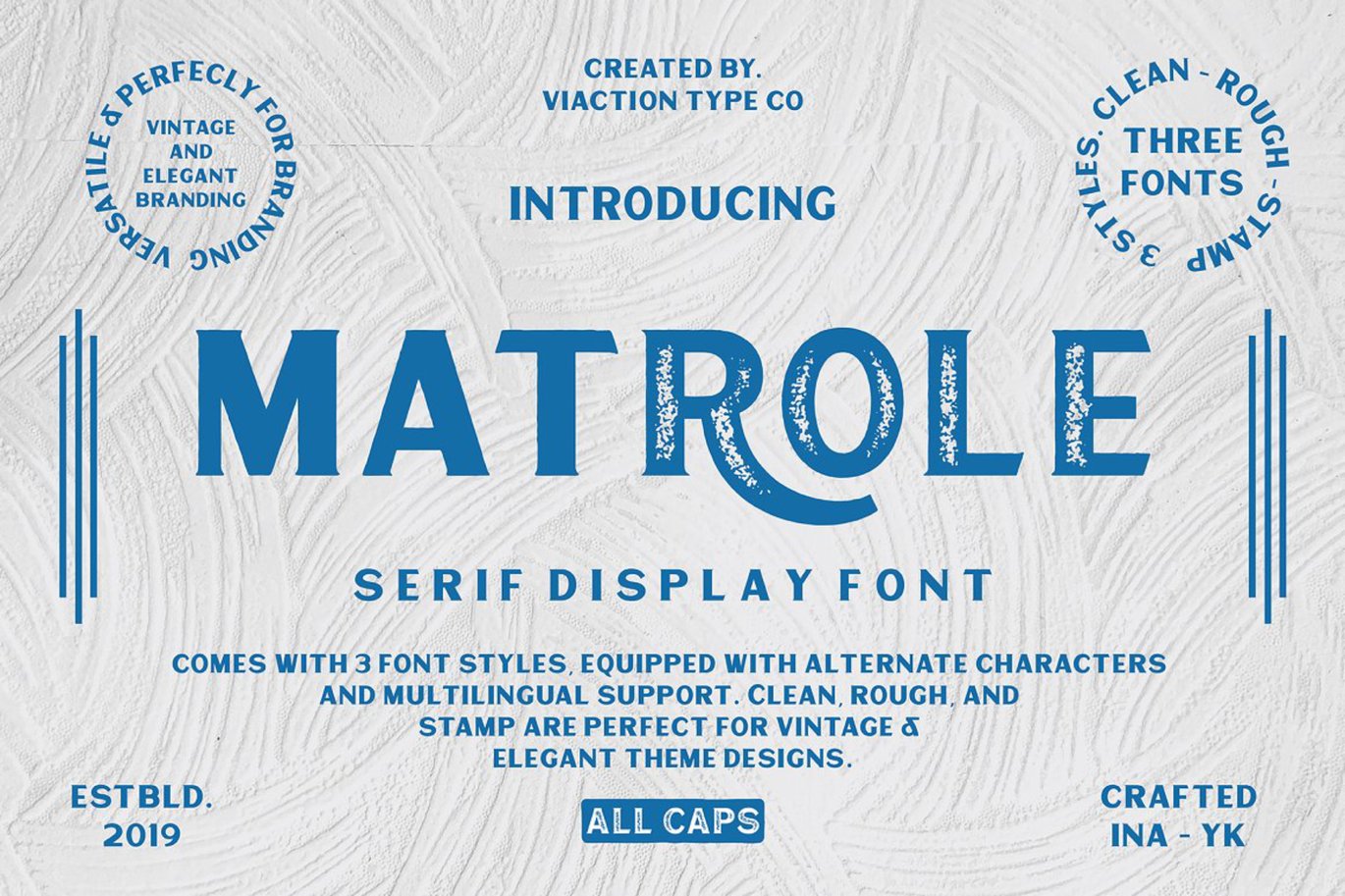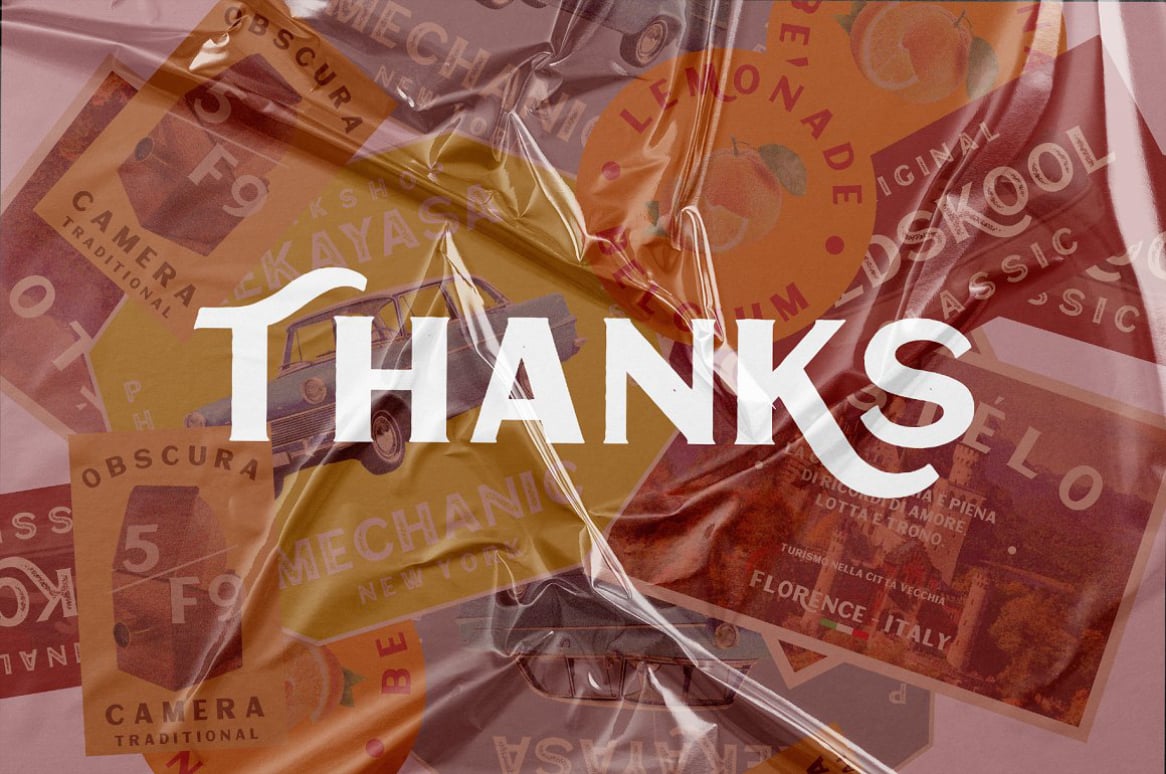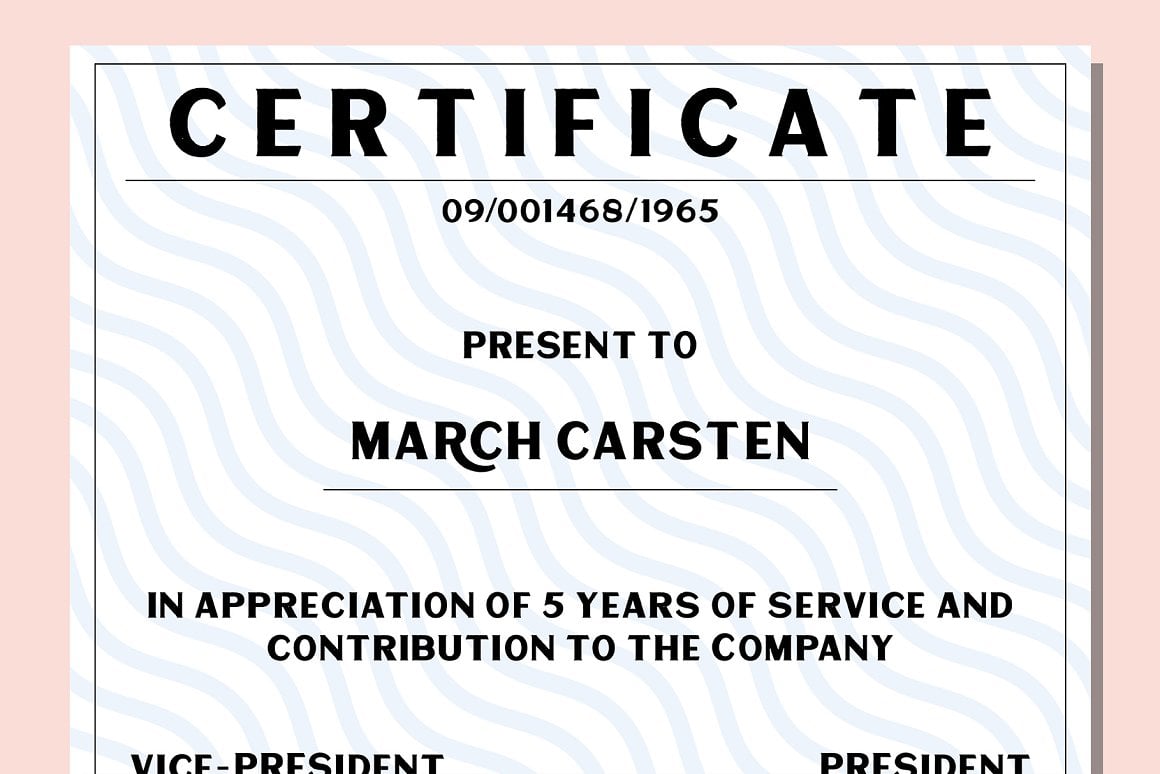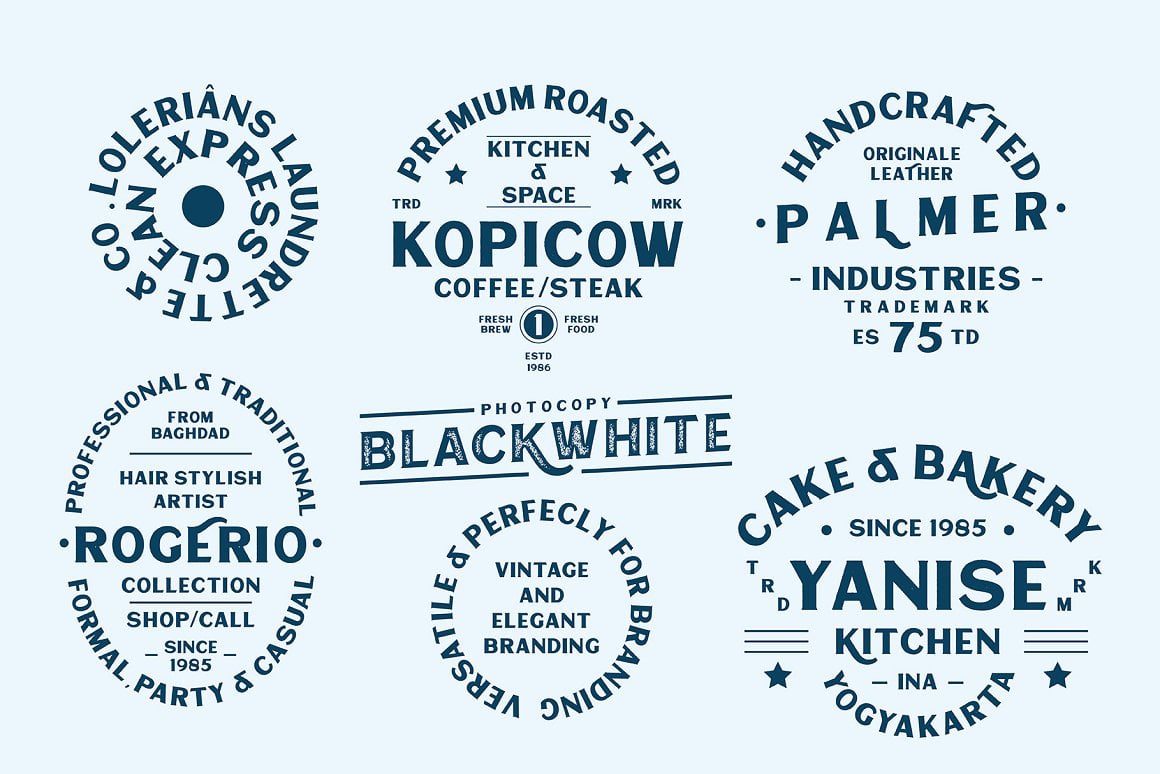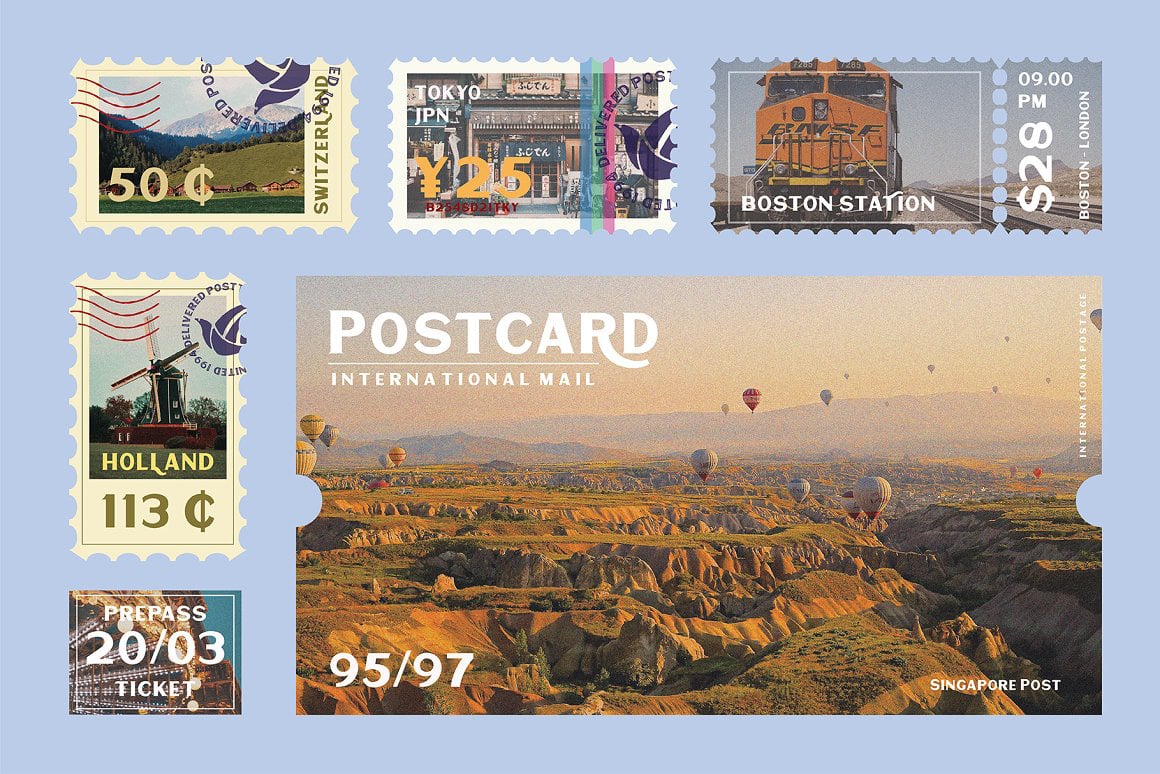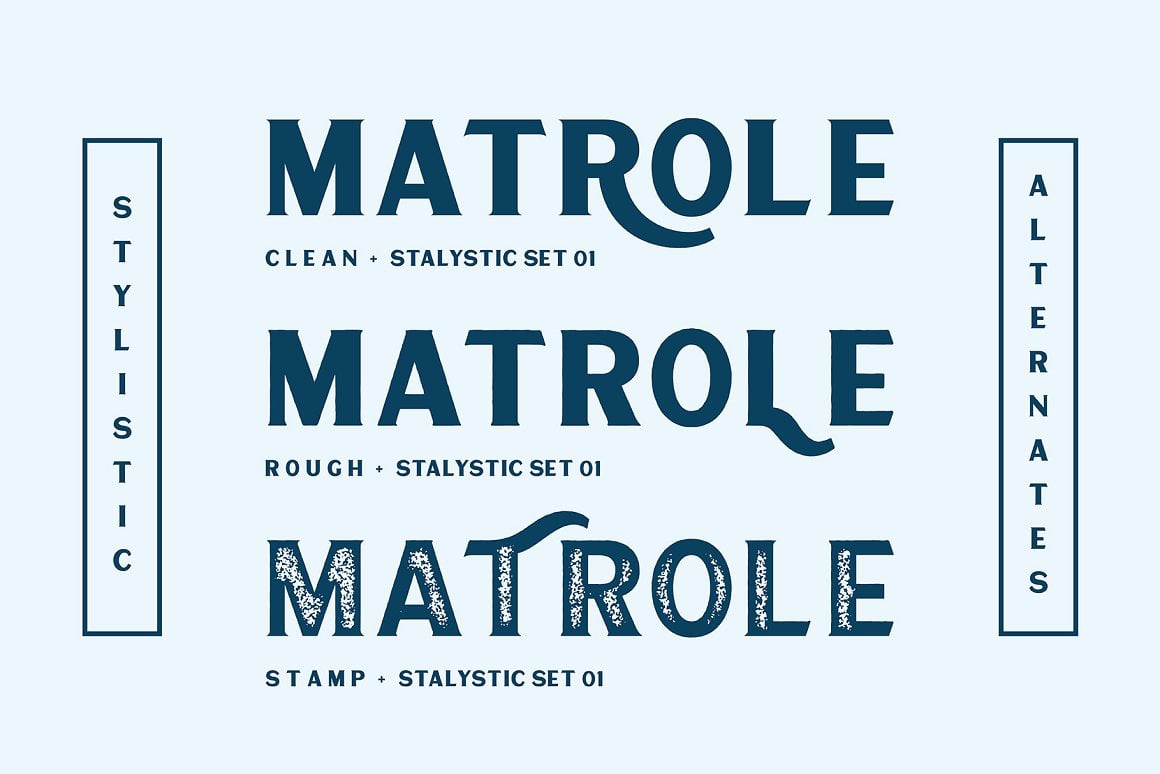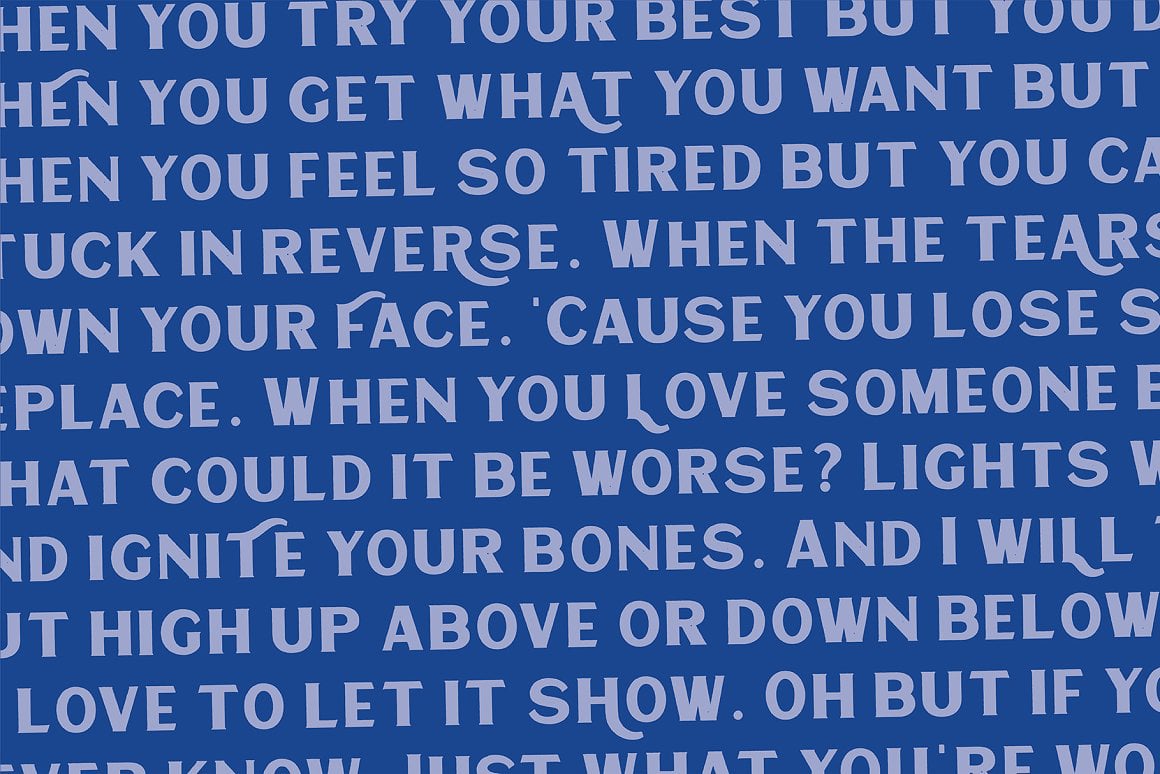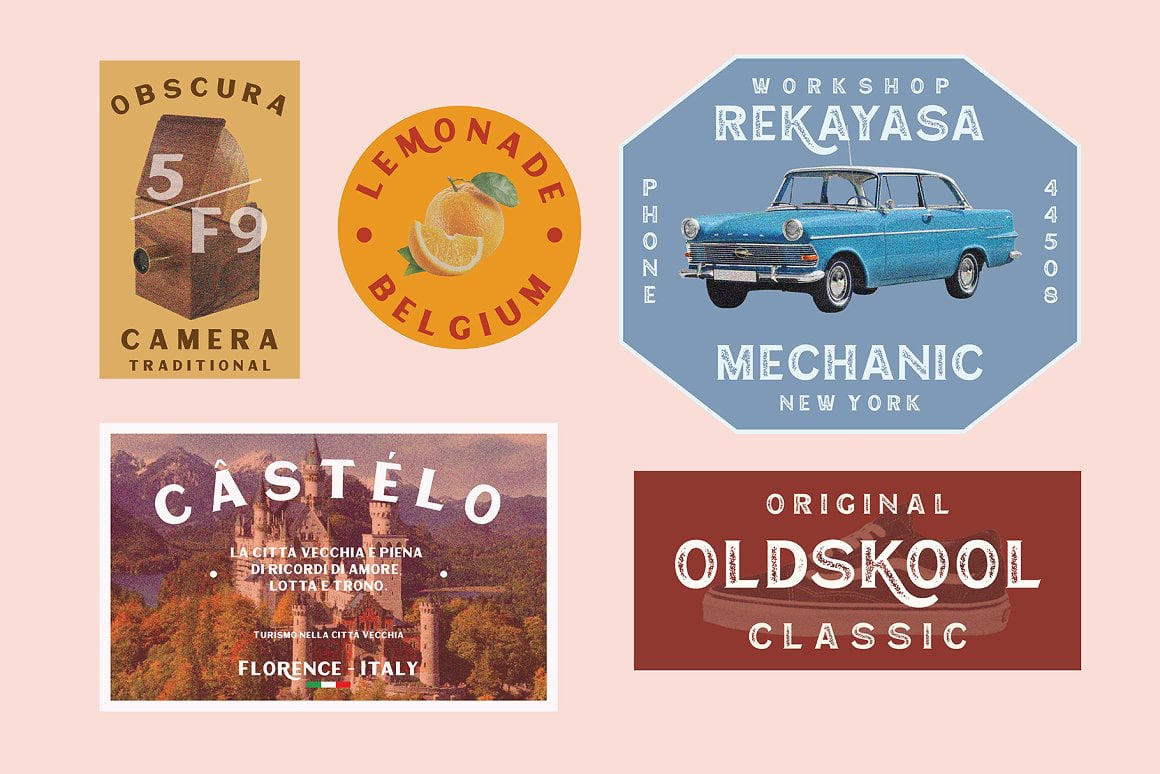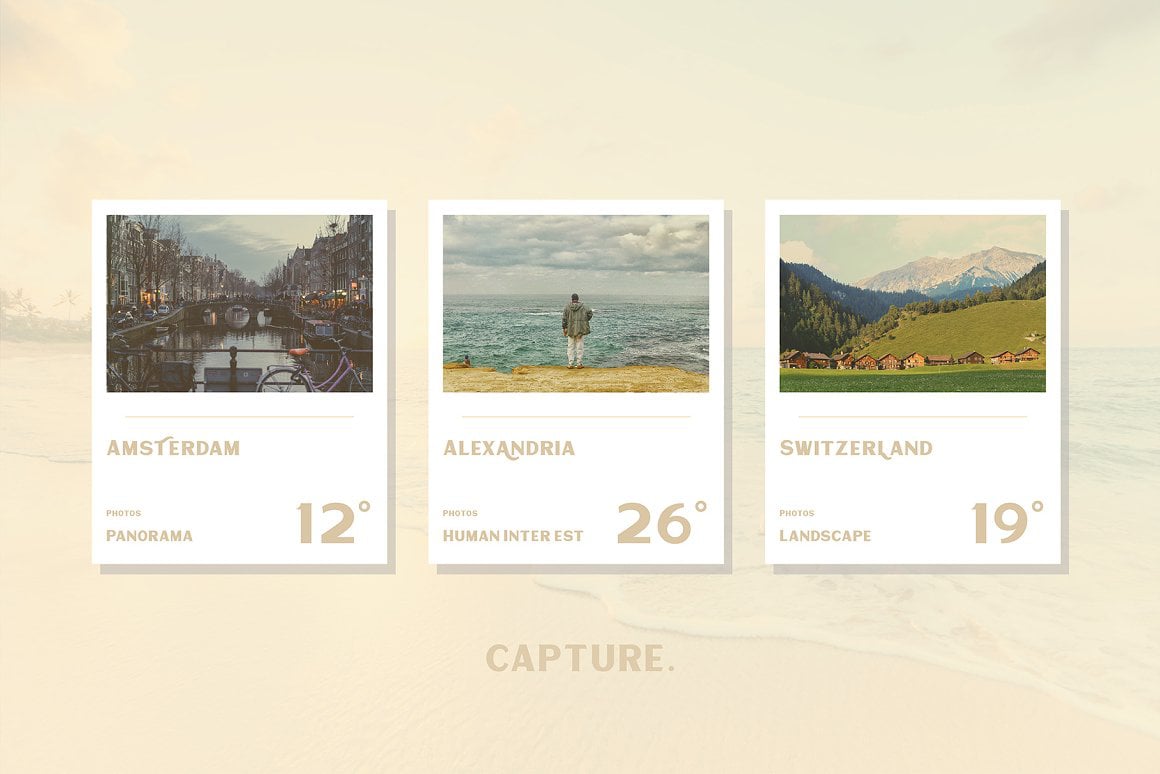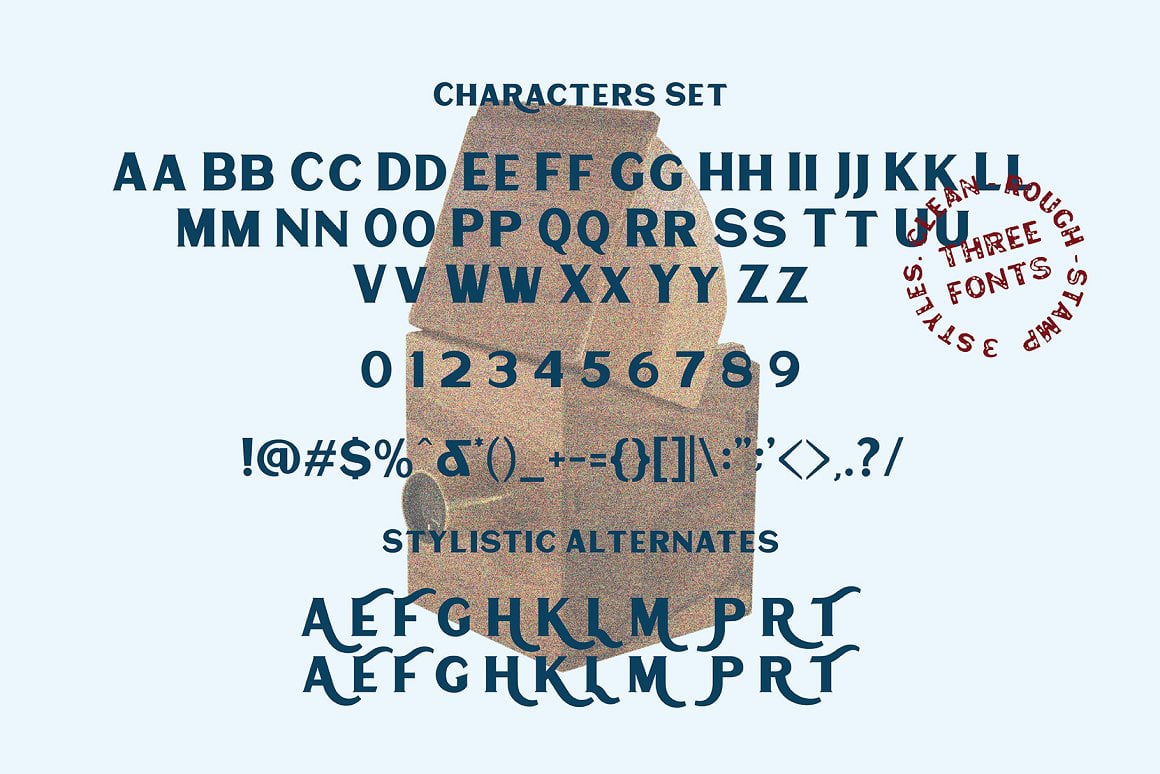
Matrole – Vintage Font
Matrole is a serif with 3 styles clean, rough & stamp, nice applied in various products. Complete with multilingual characters and stalistic alternates. It is suitable for quote, clothing design, vintage logo, label, poster, packaging design and other designs.
- UPPERCASE.
- LOWERCASE.
- MULTILINGUAL : Afrikaans Albanian Catalan Danish Dutch English Estonian Finnish French German Icelandic Italian Norwegian Portugese Spanisch Swedish Zulu
- PUNCTUATION & SYMBOL.
- STYLISTIC SET.